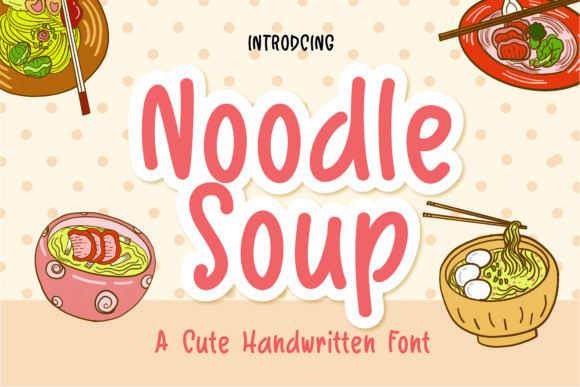
Behold Noodle Soup Font, an enchanting handwritten font bound to cast a captivating spell over your designs. With its playful strokes and whimsical charm, Noodle Soup Font dances across your screen, exuding a sense of pure joy and artistry.
Dive into a world of creative possibilities as you unleash the full potential of Noodle Soup Font. Its versatility knows no bounds, making it the perfect companion for a myriad of projects. Envision wedding invitations adorned with elegant swirls, heartfelt thank-you cards radiating warmth, or inspiring quotes taking on a new life.
Step into a realm where imagination thrives and creativity flows effortlessly. Noodle Soup Font transforms your designs into captivating expressions of art, adding a personal touch that resonates with your audience. Unleash your inner artist and let Noodle Soup guide you on a journey of self-expression.
But Noodle Soup Font is more than just a font; it's an experience. Let your imagination soar as you explore endless variations, creating designs that are as unique as your fingerprint. Whether you're crafting logos that exude professionalism, business cards that leave a lasting impression, or any other project that demands a handwritten flair, Noodle Soup Font is your trusty ally.
So, embark on this adventure today and discover the magic that awaits you with Noodle Soup Font. Its endearing charm and boundless versatility will ignite your passion for design, turning each project into a masterpiece. Step into a world of beauty and inspiration, where Noodle Soup Font weaves its enchanting spell, transforming your designs into works of art.